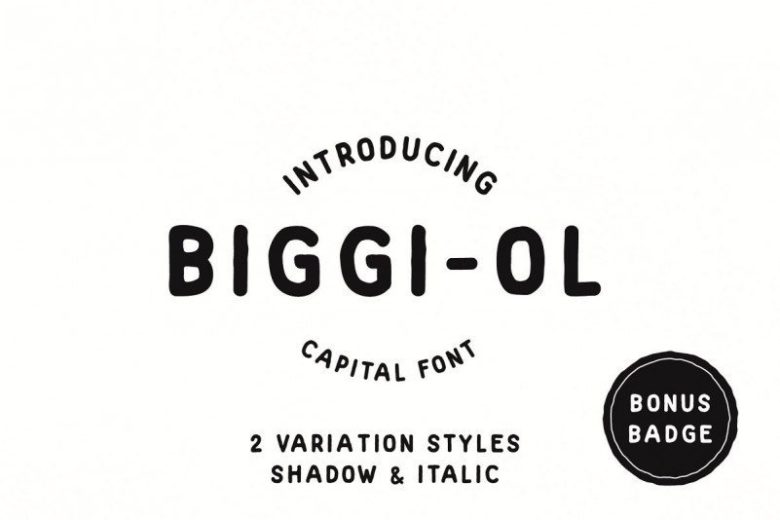
Biggi Ol Display Font
This is new Biggi Ol Font. Vintage serif font with beautiful alternate characters to support your brand/project.
Biggi Ol is perfect for projects such as logos & branding, invitation, stationery, wedding designs, social media posts, advertisements, printed quotes, product packaging, product designs, label, photography, watermark, special events or anything.